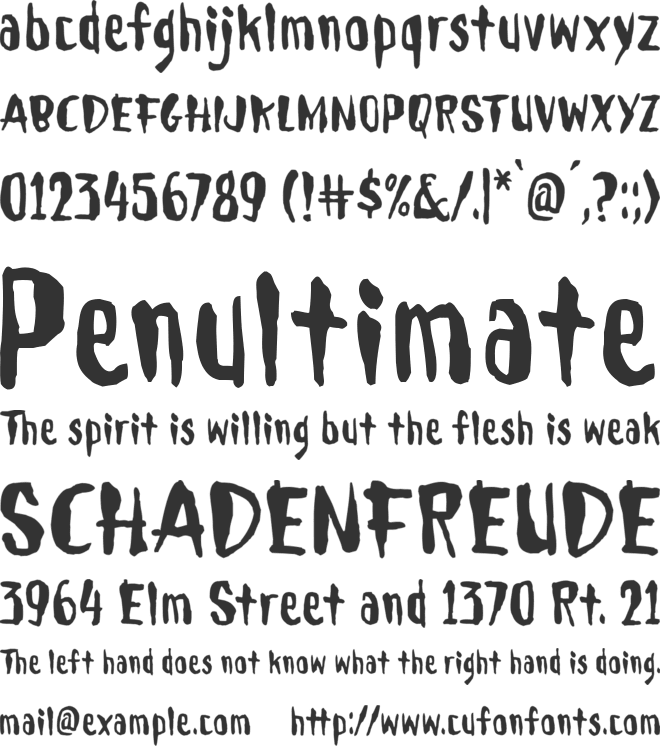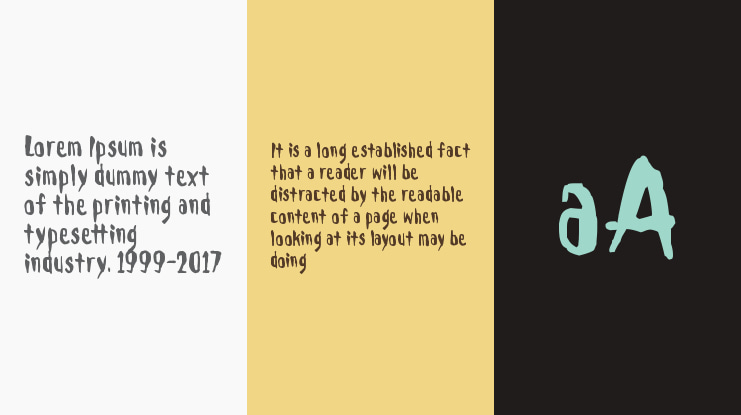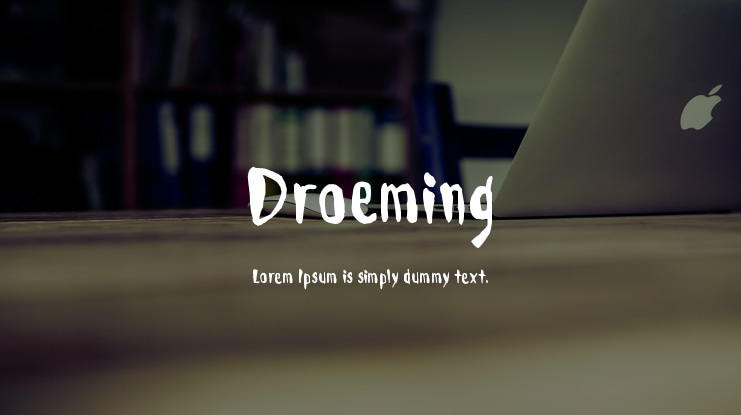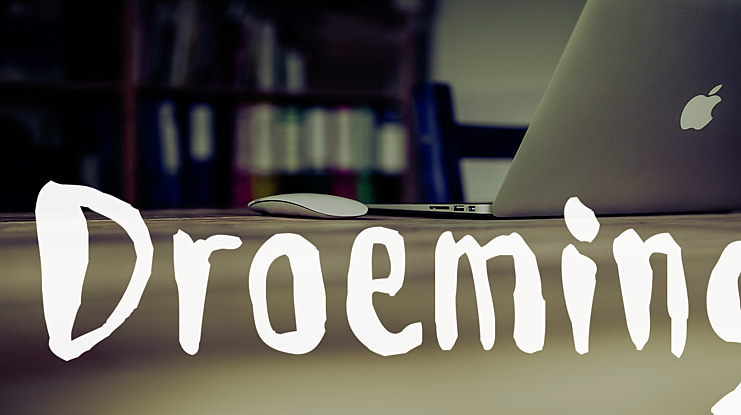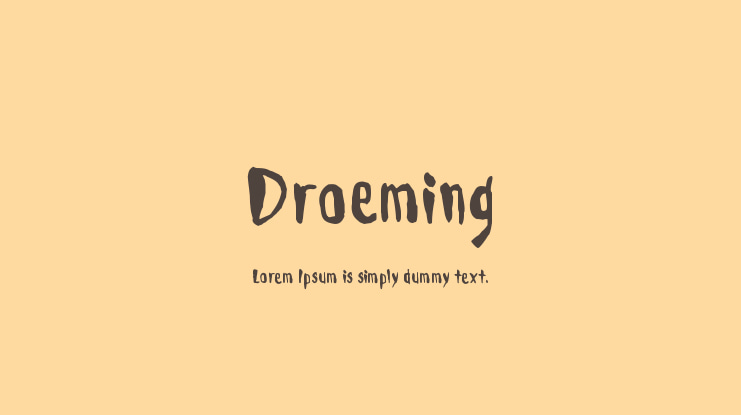
Droeming Font Family
It's the font that inspired a story. Or is it the story that inspired a font? Droeming is a simple experiment in scrawl font technique. Drawn by hand with a very small brush and a few drams of India ink, the scanned and vectored results deliver intriguing thicks and thins with curious blobbings that create interest and variation. After some heavy kerning of 7,000 plus pairs--and some heavy writing of 26,000 or so words--the font and the story it inspired are finally done. But didn't I just hint that it's not clear which inspired which? Check out the droeming specimen in my gallery and see if you can guess the answer. And then ask yourself, can you survive the droem? It would be a syn if you couldn't.